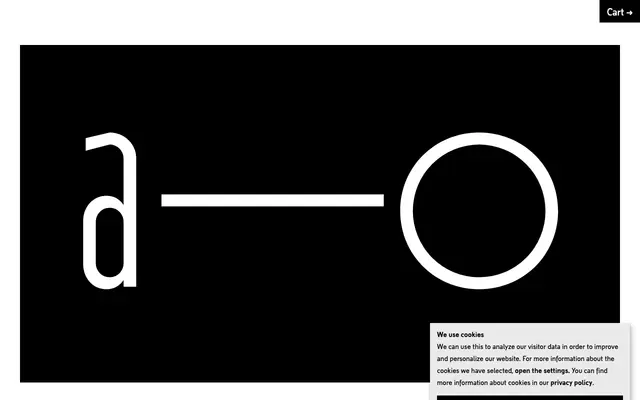
Krasz
Nice To Type · Gabriel Richter and Andreas Uebele · 2020
A six-weight grotesque sans by Gabriel Richter and Andreas Uebele, released in 2020 with italics and variable font support throughout.
Designed by Gabriel Richter and Andreas Uebele and font-produced by Christoph Koeberlin, Krasz spans Extra Light to Black with matching italics across all six weights. It ships as both static OpenType fonts and a variable font with a continuous weight axis, and carries an extensive glyph set covering oldstyle and tabular figures, stylistic sets, arrows and circled figures. Language support extends across a broad range of Latin-based writing systems, from European languages to Maori and Swahili.
The letterforms and specimen suggest a contemporary grotesque sans-serif with humanist influences, offering a range of weights with italic companions and variable font support.